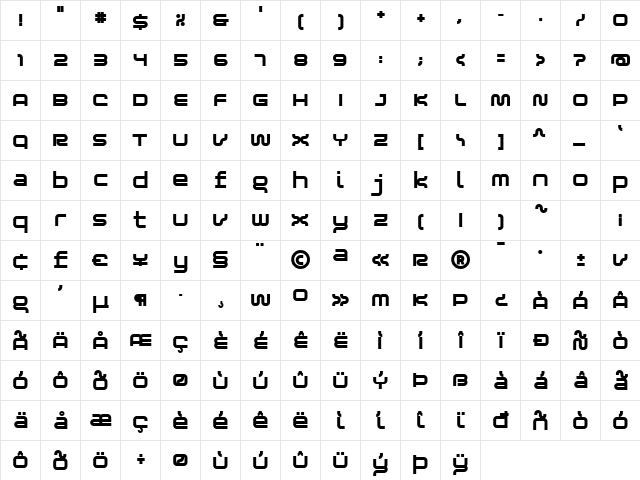
Blessed ExtraBold
| Foundry | YouWorkForThem |
| Designer | Michael Cina |
Design Context for Blessed Typeface
Blessed is a composed and adaptable typeface that performs quietly and consistently across a wide range of design contexts. Its bold stroke weight gives it real presence on the page.